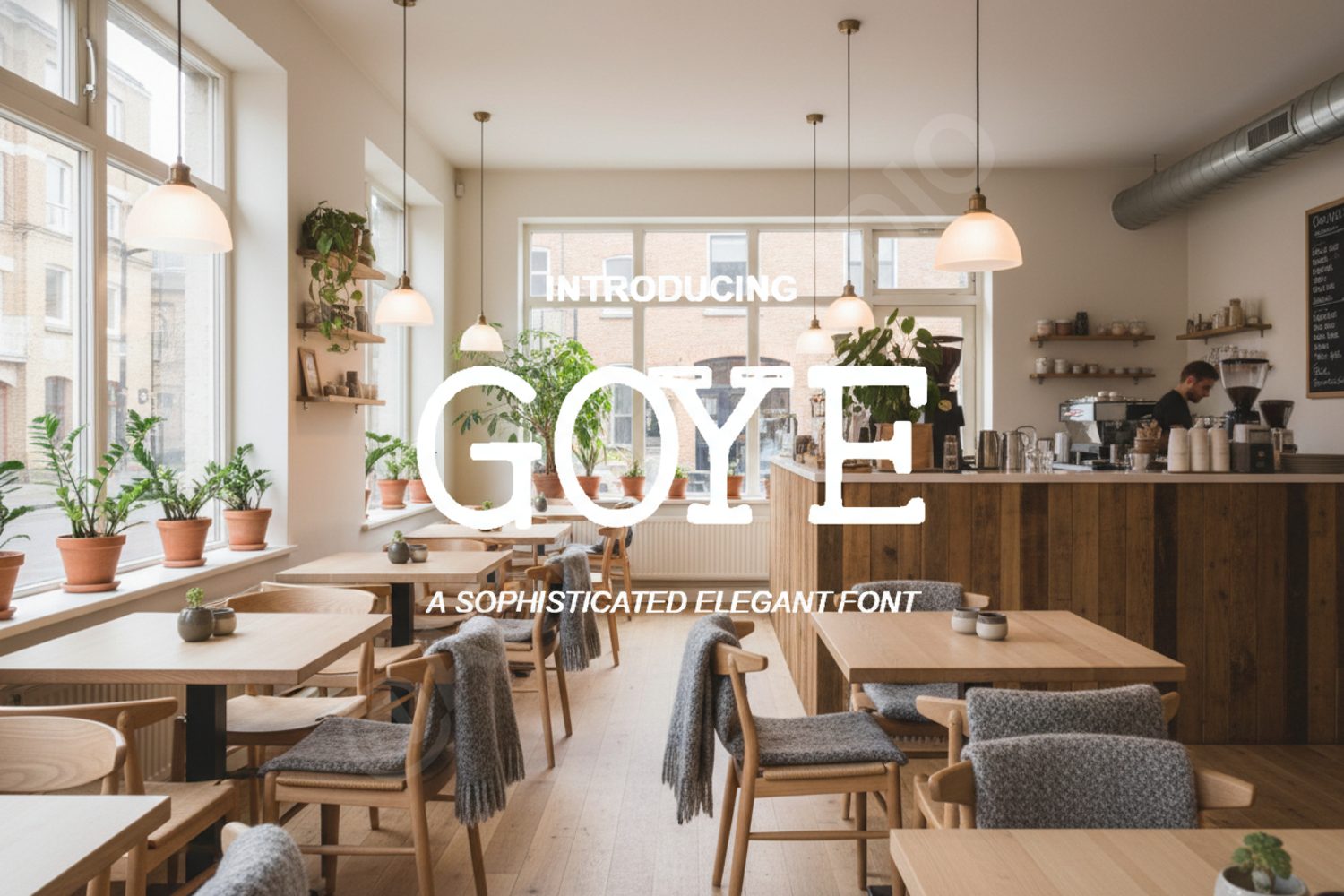
Goye - Elegant Modern Serif Display Font
Goye
Goye is a sophisticated serif typeface designed for creators who demand excellence and precision. With its clean lines and perfectly balanced proportions, Goye offers a high-end aesthetic that bridges the gap between classic tradition and modern minimalism. This font is engineered to provide a premium feel to any design project, ensuring your work looks polished and professional.
- Premium Branding and Logo Design: Create a lasting impression with a refined visual identity.
- High-End Wedding Stationery: Add a touch of class to invitations, save-the-dates, and menus.
- Editorial Layouts: Perfect for magazine headers, book covers, and sophisticated spreads.
- Minimalist Social Media Graphics: Elevate your digital presence with clean, readable typography.
- Luxury Product Packaging: Enhance the perceived value of your products through elegant labeling.